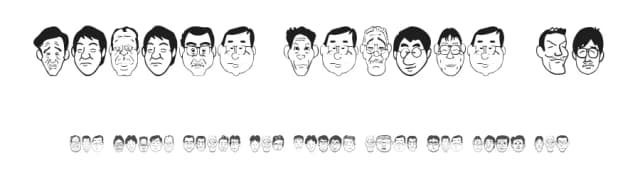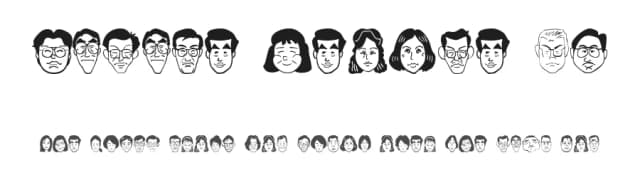
About Sakabe Animal 02 Font
Sakabe Animal 02 is a dingbat font designed by Takasakiyama. It includes 67 glyphs, a regular weight, TTF (TrueType) format, and 89 languages. Sakabe Animal 02 is free to download; check the license details on this page before commercial use. Dingbat fonts like Sakabe Animal 02 work best for icons, ornaments, bullet points, and decorative accents.
| Designer | Saruo |
Sakabe Animal 02 Font is a versatile dingbats font that works for both headings and body text. Pair it with a contrasting sans-serif or serif font to add visual interest and a clear distinction between titles and body copy.
Sakabe Animal 02 Font
by Takasakiyama
Sakabe Animal 02 Font is a dingbats typeface by Takasakiyama, ideal for logos, invitations, branding, and creative projects.